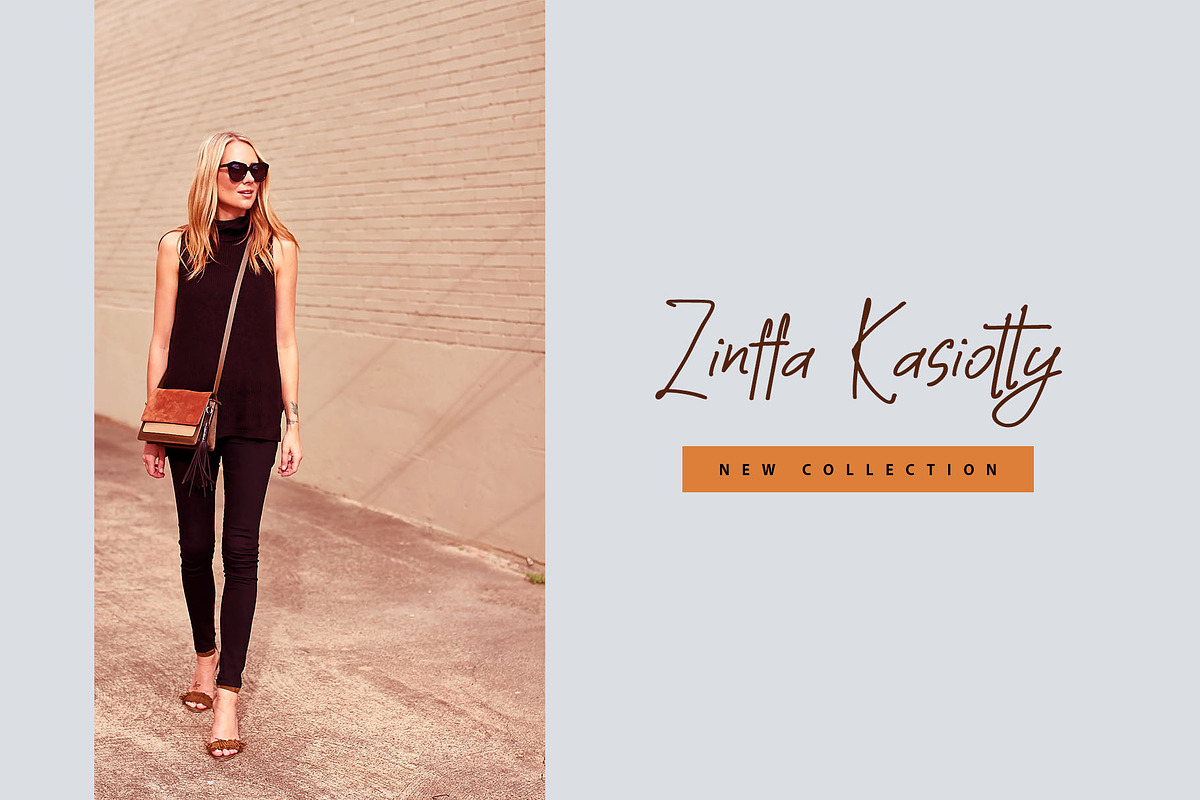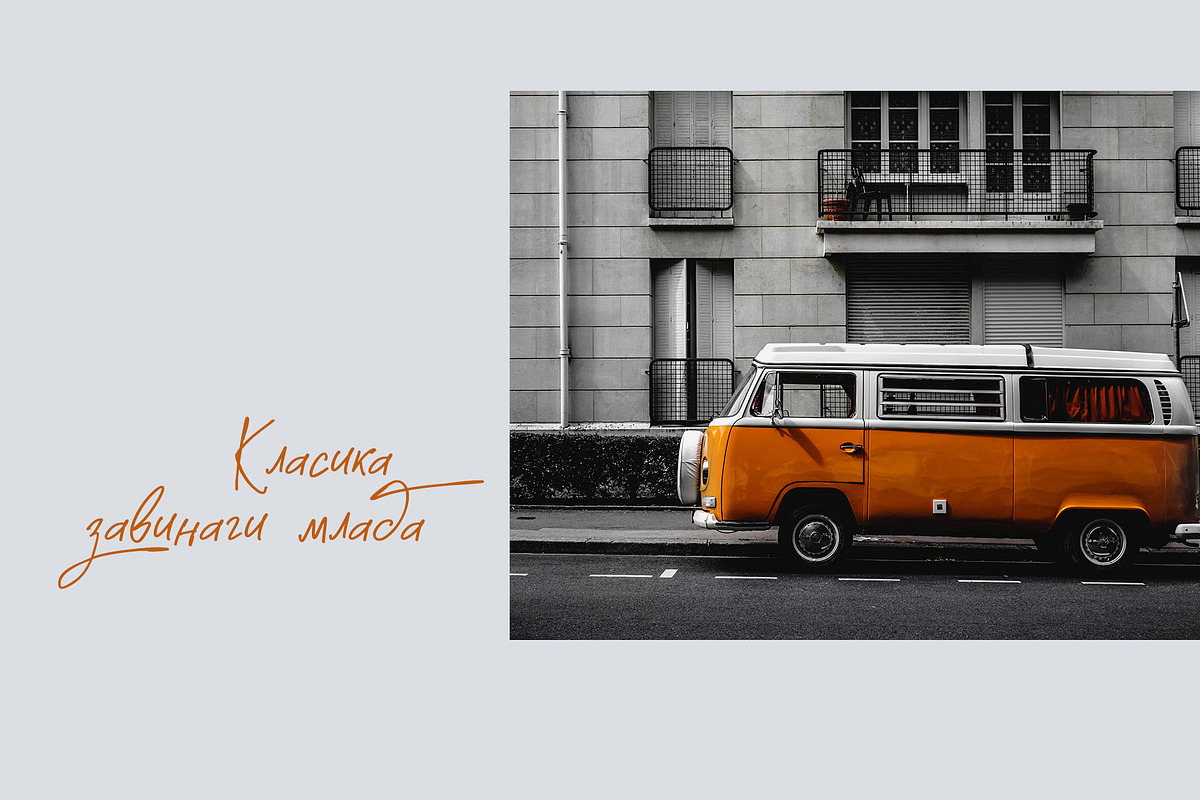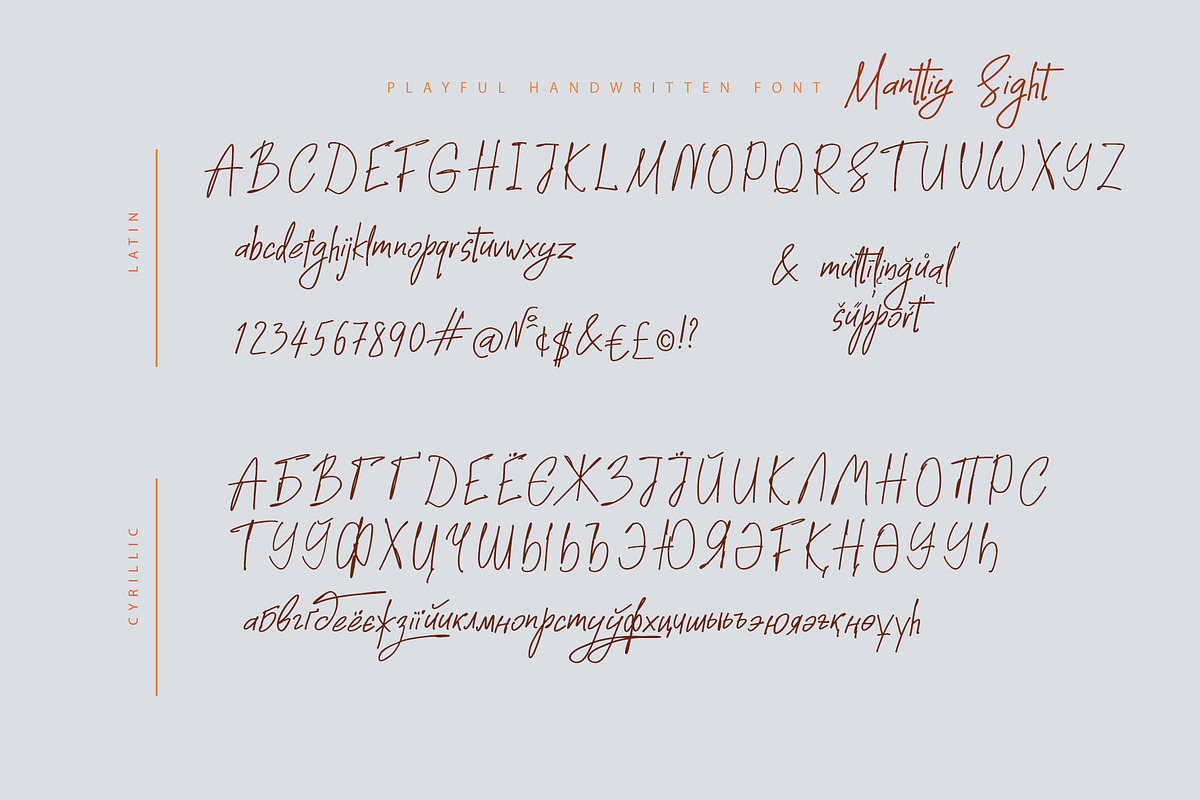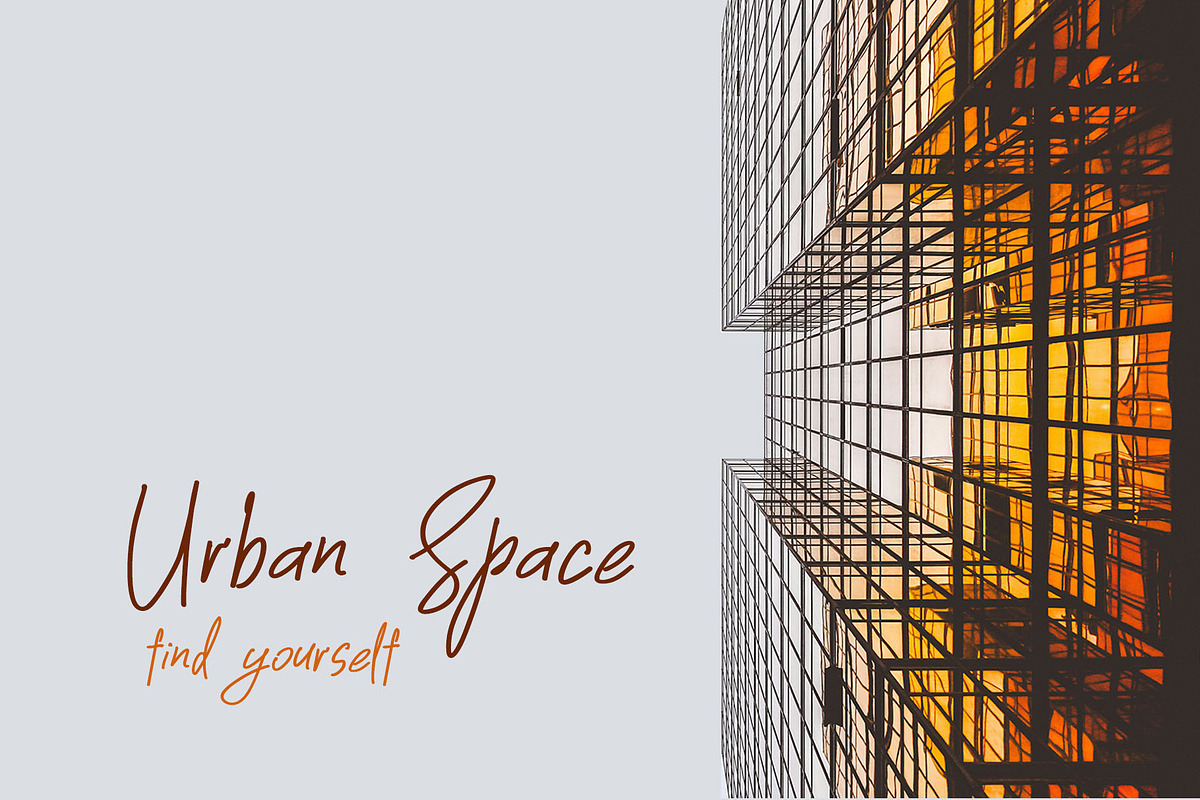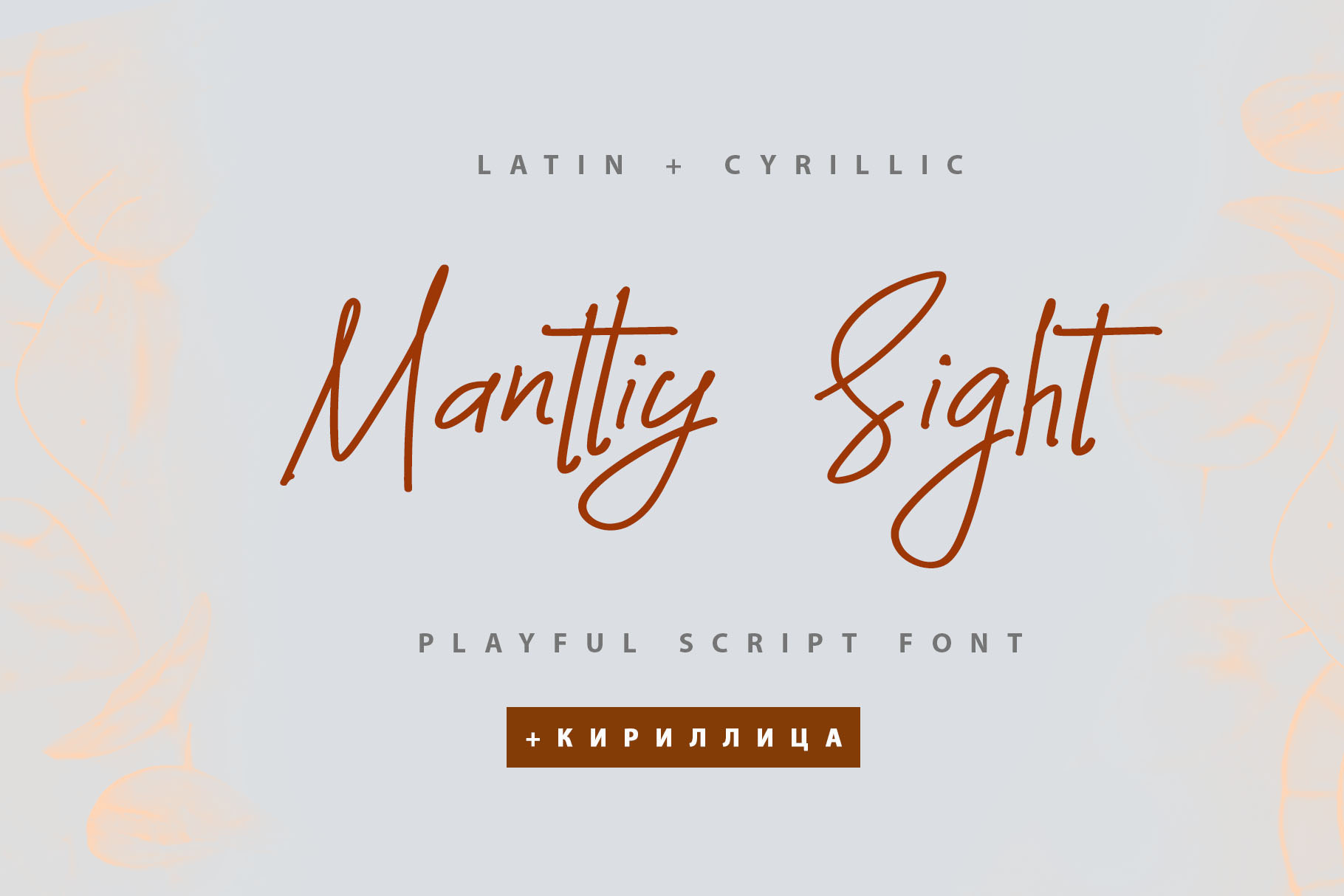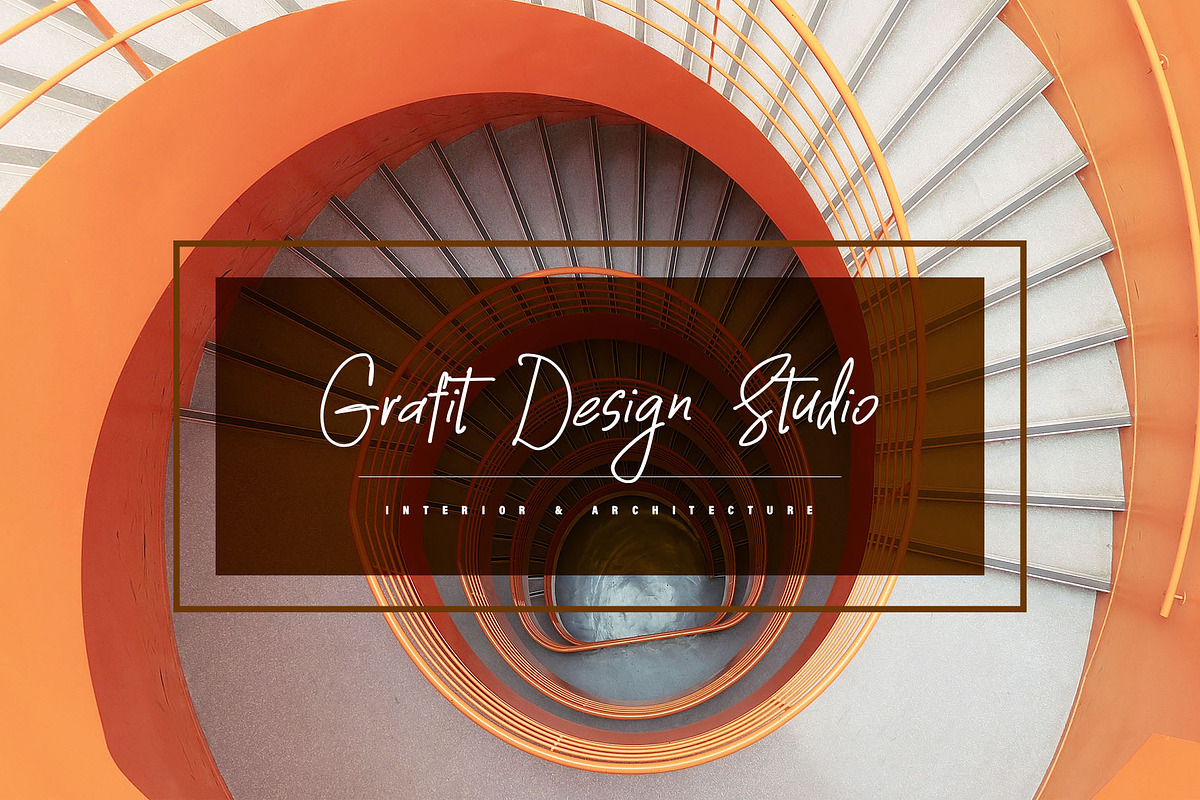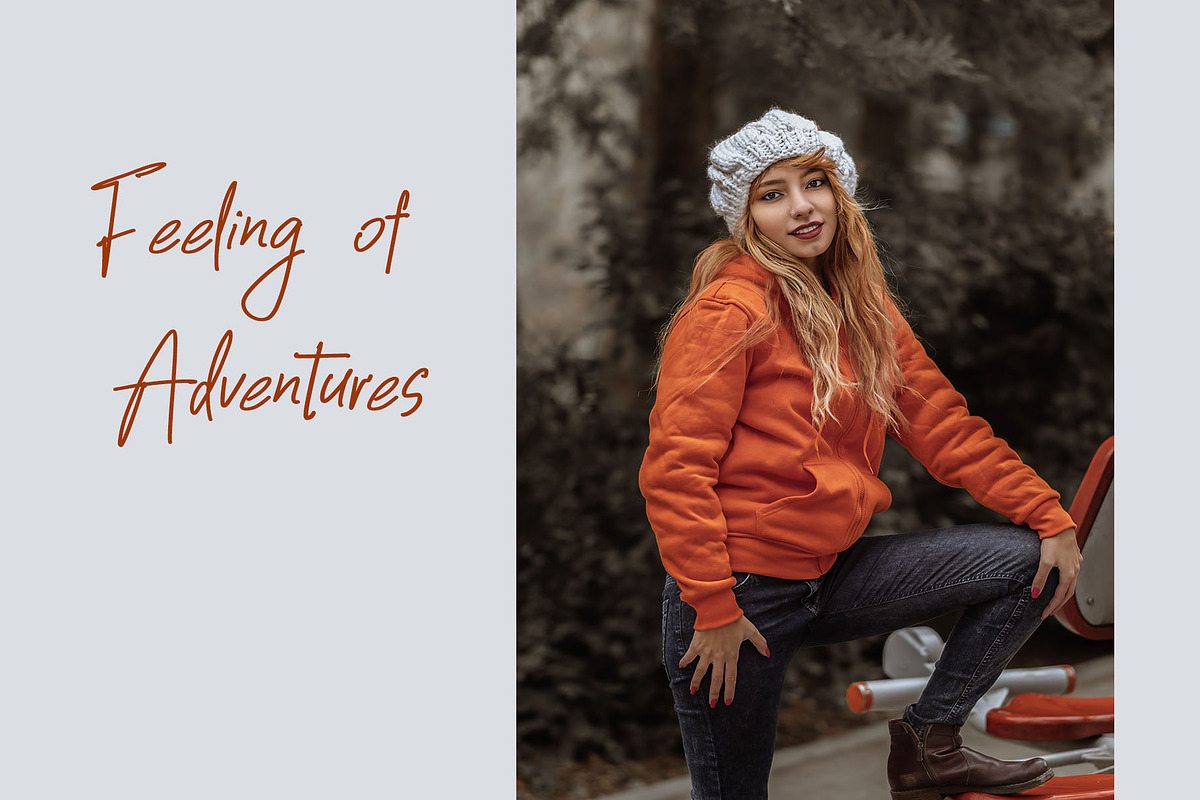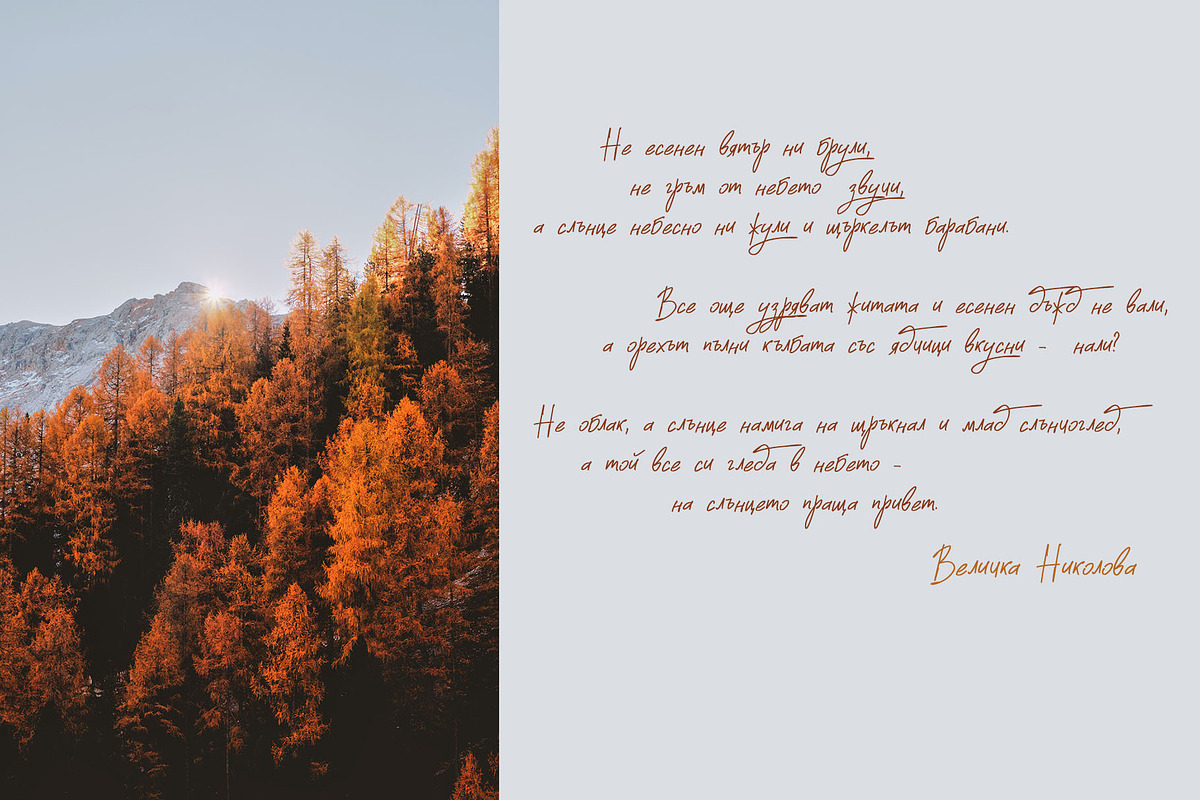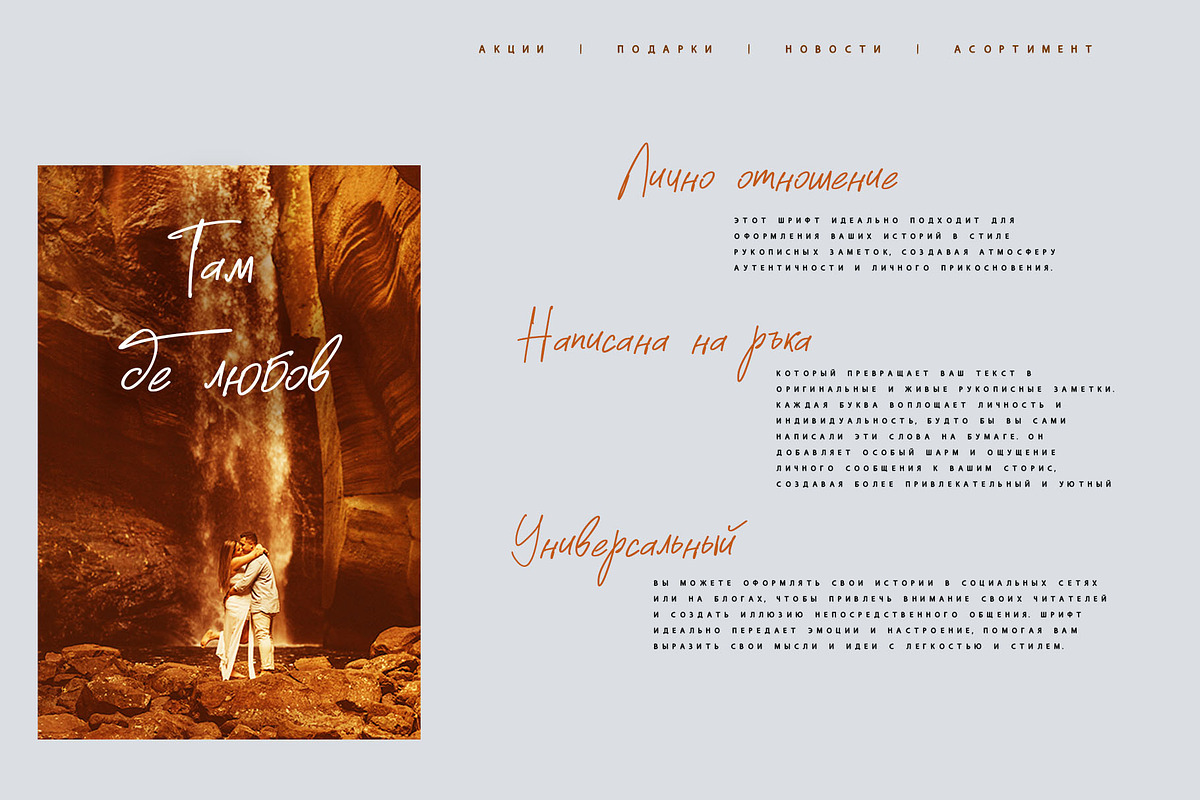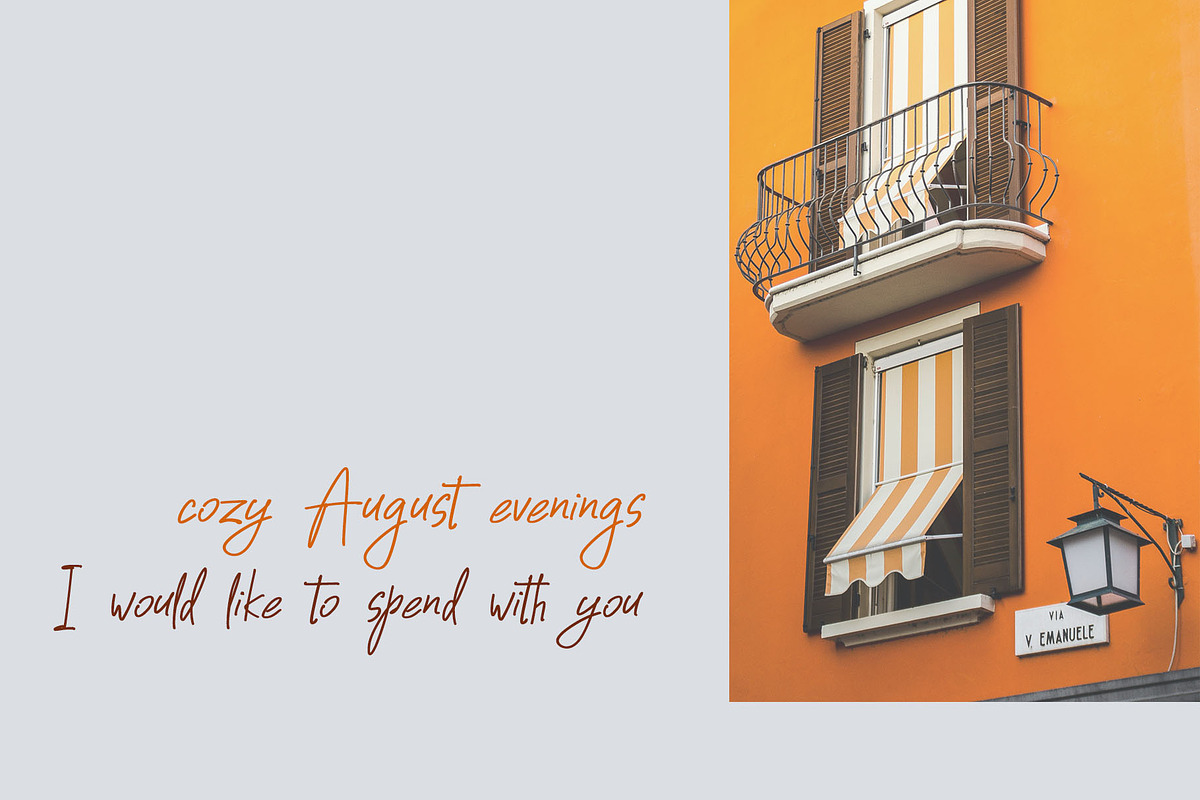
Manttiy Sight Cyrillic Playful Font
Manttiy Sight playful script font Cyrillic is a pretty monoline font that will look gorgeous on all your designs, wedding stationery, love stories, branding materials, monoline logos, pretty teenage stickers, business and wedding cards, calligraphy Insta quotes, elegant fashion sketches, calligraphy love monograms and much more.
Manttiy Sight playful script font contains the Cyrillic glyphs too.
Multilingual Support for 31 languages: Latin glyphs for Afrikaans, Albanian, Basque, Bosnian, Catalan, Danish, Dutch, English, Estonian, Faroese, Filipino, Finnish, French, Galician, Indonesian, Irish, Italian, Malay, Norwegian Bokmål, Portuguese, Slovenian, Spanish, Swahili, Swedish, Turkish, Welsh, Zulu.
And Cyrillic glyphs support Ukrainian, Belorussian, Bulgarian, Russian Mongolian and Kazakh languages.